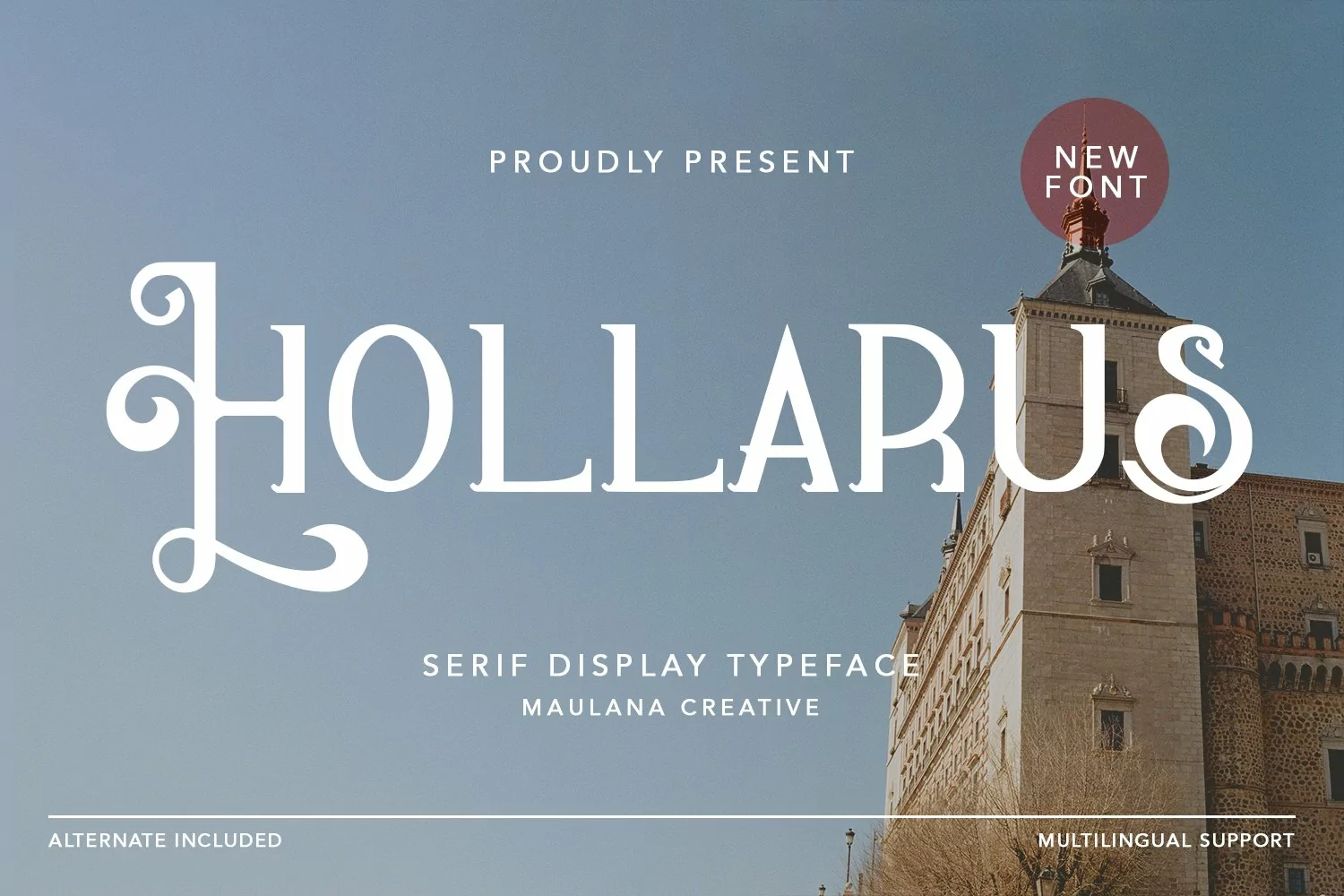
Hollarus is a modern display serif font. With bold contrast stroke, fun character with a bit of ligatures. To give you an extra creative work. Hollarus font support multilingual more than 100+ language. This font is good for logo design, Social media, Movie Titles, Books Titles, a short text even a long text letter and good for your secondary text font with sans or serif. Make a stunning work with Hollarus font.